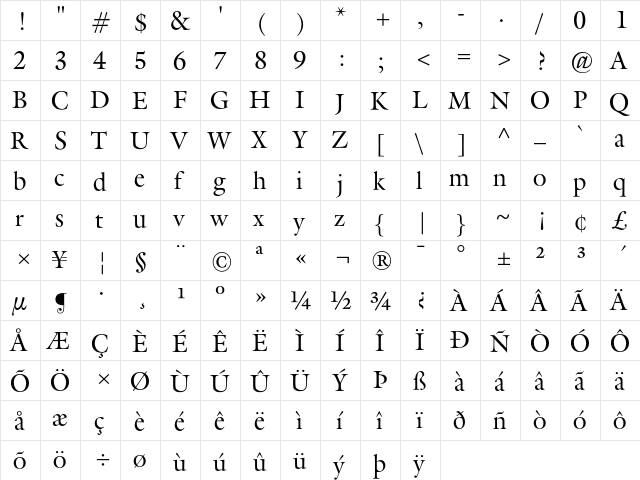
GalliardCC Regular Font Preview
GalliardCC Regular
GalliardCC Regular Font Details
| Foundry | Copr. Carter & Cone Type Inc |
Design Context for GalliardCC Typeface
GalliardCC offers clean, dependable letterforms without strong stylistic allegiance, making it a practical choice for designers who need flexibility.